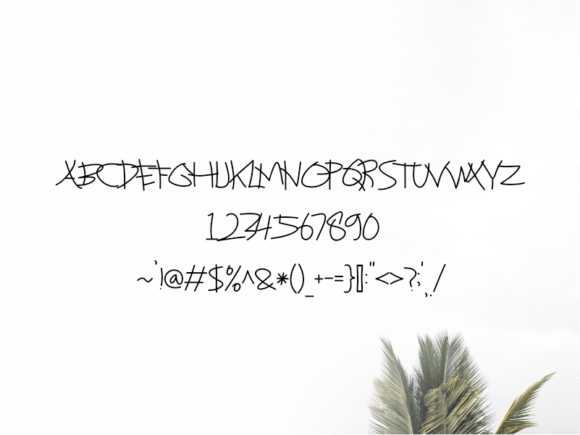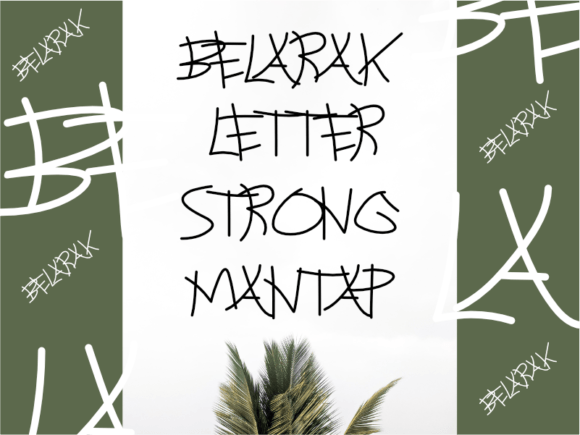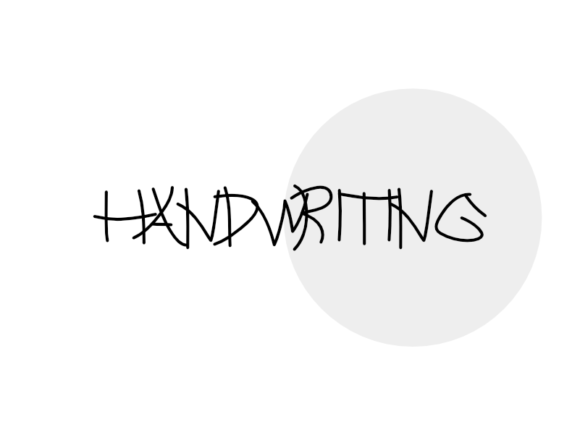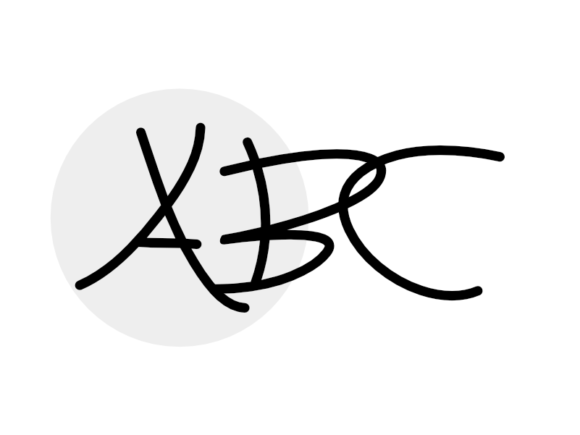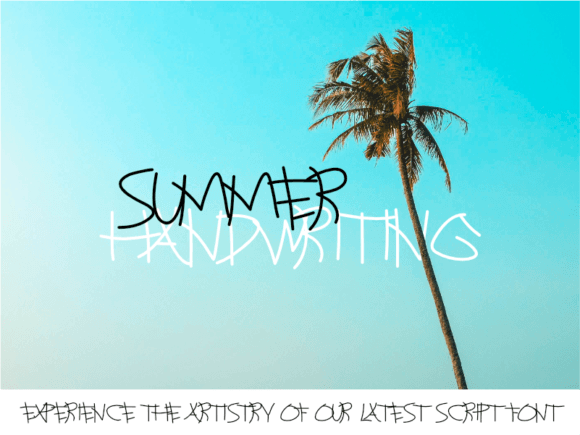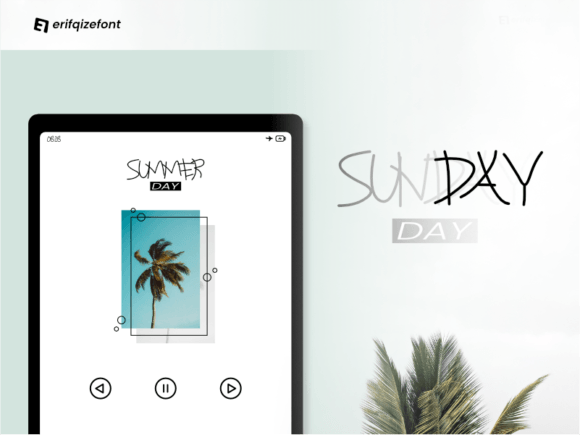
Discover the Unique Charm of Belarak Font: Elevate Your Design Projects
In the vast universe of typography, fonts play a pivotal role in bringing creativity and personality to design projects. Among the myriad of fonts available, Belarak stands out with its distinctive handwritten script style. This article aims to explore the Belarak font in depth, highlighting its features, and the multitude of ways it can be utilized to enhance your creative endeavors.
What is Belarak Font?
Belarak is a beautifully crafted handwritten script font that boasts a simple yet unique aesthetic. Its elegance and charm make it an excellent choice for designers looking to infuse a personal touch into their work. The font’s simplicity ensures readability, while its uniqueness sets it apart from more conventional fonts, making it perfect for projects that demand a bit of flair.
Key Features of Belarak Font
- Handwritten Script Style: Offers a personal and organic feel, ideal for projects that require a touch of individuality.
- Simple and Unique: Strikes a perfect balance between elegance and distinctiveness, making it versatile for various design applications.
- High Readability: Despite its stylized nature, Belarak maintains a high level of readability, suitable for both headings and body text.
Applications of Belarak Font
The versatility of Belarak font makes it suitable for a wide range of design projects. Here are some of the most popular applications:
- Watermarks on Photography: Add a professional and personalized touch to your photographs with Belarak. Its subtle elegance won’t overshadow your images while ensuring your mark is noticeable.
- Logo Designs: A unique logo can significantly elevate your brand’s identity. Belarak’s distinctive style can help create memorable and impactful logos.
- Weddings and Invitations: The font’s romantic and elegant feel makes it perfect for wedding-related designs, including invitations, save-the-date cards, and wedding banners.
- Quotes and Typography Art: Use Belarak to give life to inspirational quotes and typography art. Its stylish appearance will make any quote stand out.
- Book Covers: For authors and publishers looking for a font that can convey emotion and genre, Belarak can be a compelling choice for book covers.
- Business Cards: Stand out in the professional world with business cards designed using Belarak. It adds a touch of sophistication and creativity.
Why Choose Belarak Font?
Choosing Belarak font for your projects comes with several advantages:
- Uniqueness: It offers a fresh alternative to commonly used fonts, helping your designs to stand out.
- Versatility: Its simple yet stylish nature makes it suitable for a variety of projects, from personal to professional.
Tips for Using Belarak Font Effectively
To maximize the potential of Belarak font, consider the following tips:
- Pair with Complementary Fonts: When using Belarak alongside other fonts, choose ones that complement its style to maintain harmony in your design.
- Adjust Size and Color Thoughtfully: Experiment with different sizes and colors to ensure that Belarak enhances your design without overpowering it.
- Consider the Context: Tailor your use of Belarak to fit the project’s tone and audience. For example, a more playful use might suit a creative blog, while a subtle application could be better for professional branding.
| Author | erifqizefont |
Belarak font, with its simple and unique handwritten script style, presents a world of creative possibilities for designers and crafters. Whether you’re working on a photography project, designing a logo, or crafting invitations, Belarak offers the elegance and distinctiveness needed to make your work shine. By incorporating Belarak into your design toolkit, you’re opening the door to fresh and captivating design opportunities that are sure to leave a lasting impression.